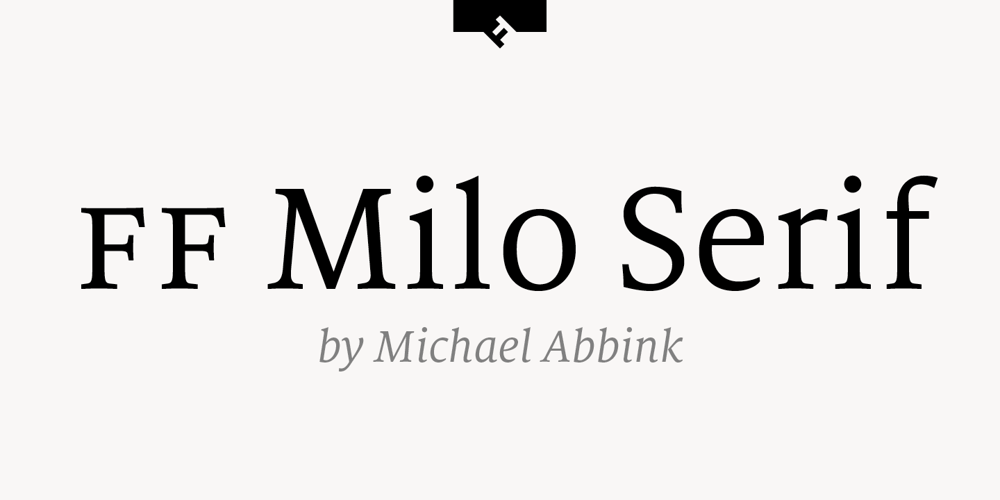
FF Milo Serif Font Family was designed by Michael Abbink and published by FontFont. FF Milo Serif contains 12 styles and family package options. American type designer Michael Abbink created this serif FontFont between 2009 and 2010. The family has 12 weights, ranging from Regular to Black (including italics) and is ideally suited for advertising and packaging, book text, editorial and publishing, logo, branding and creative industries as well as small text. FF Milo Serif provides advanced typographical support with features such as swashes, ligatures, small capitals, alternate characters, case-sensitive forms, and fractions. It comes with a complete range of figure set options – oldstyle and lining figures, each in tabular and proportional widths. FF Milo Serif received several awards: the ISTD award in 2011 and the Letter.2 award in 2011. This FontFont is a member of the FF Milo super family, which also includes FF Milo.